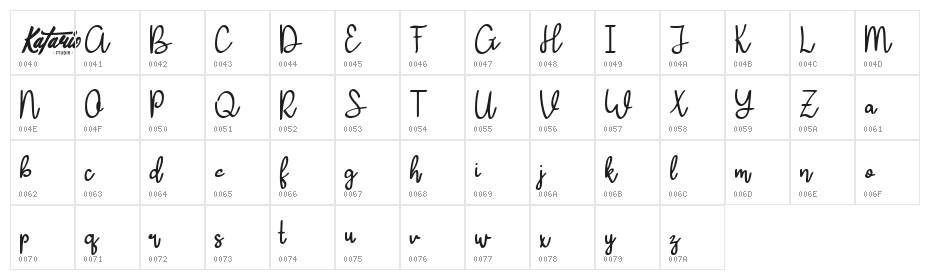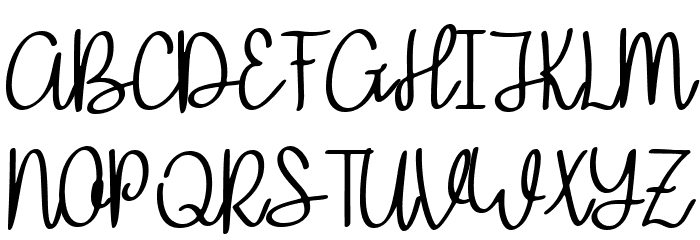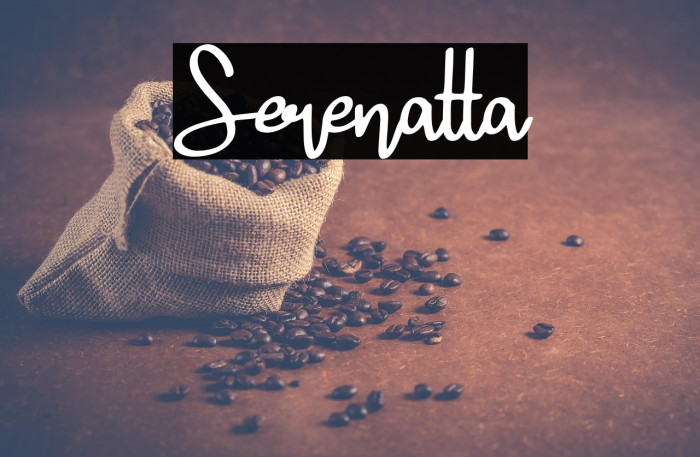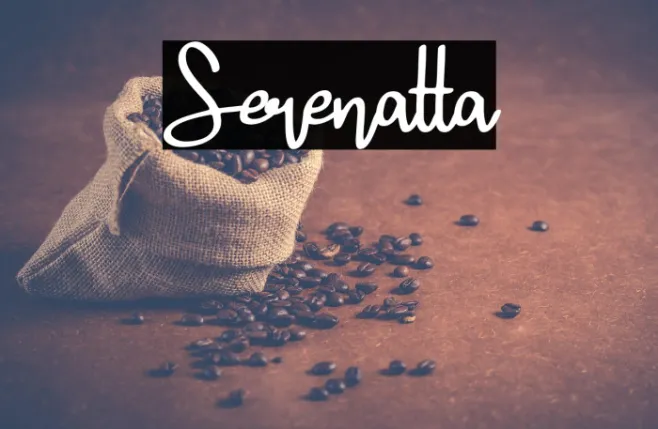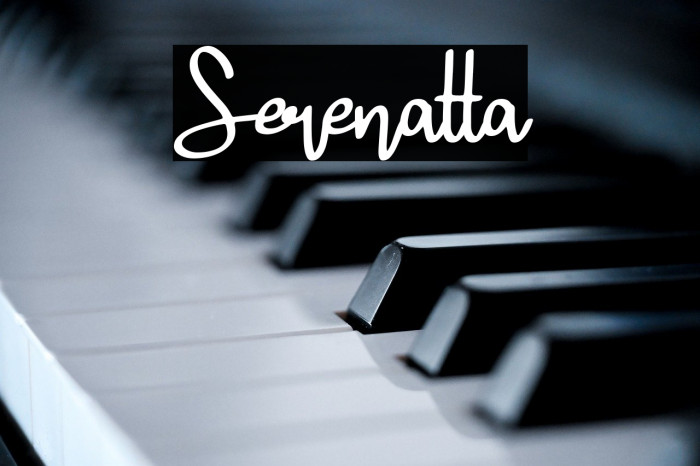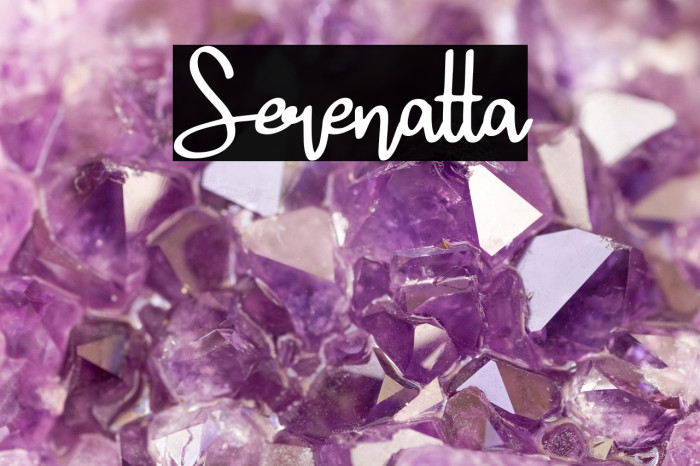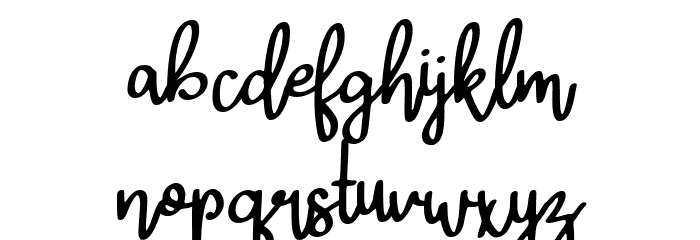
Serenatta Font
Serenatta Description
This font features a playful and flowing script style, characterized by its smooth, continuous strokes that mimic the fluidity of handwriting. The letters are elegantly connected, creating a sense of movement and rhythm. The uppercase letters are bold and prominent, while the lowercase letters maintain a consistent flow, enhancing readability. The font exudes a casual yet sophisticated charm, making it suitable for a variety of creative applications. Its unique style is perfect for adding a personal touch to any design project.